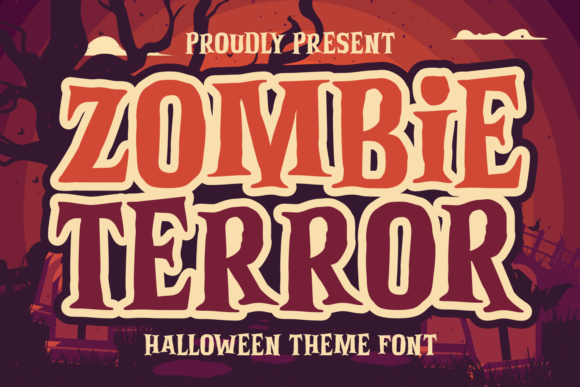
Introducing Zombie Terror Font, the ultimate spine-chilling typeface that will send shivers down your spine! Created by Jasm from 7NTypes, this font family is specifically designed to give your Halloween-themed projects a bone-chilling touch that will make your audience scream with delight.
With its jagged edges and ghoulishly bold letters, Zombie Terror Font perfectly captures the essence of the undead. Each character is crafted with meticulous attention to detail, ensuring that every word you type will ooze with the terrifying spirit of Halloween.
Are you hosting a haunted house event? Or perhaps you're organizing an eerie Halloween party? Look no further! Zombie Terror Font is your go-to choice for creating spine-tingling posters, invitations, and any other project that needs that extra dose of fright.
Imagine the impact when your guests receive an invitation adorned with this terrifying font. The twisted letters will instantly transport them to a world of ghouls and ghosts, setting the perfect tone for a night full of bone-chilling excitement.
But Zombie Terror Font is not just for party invitations. It's also perfect for crafting unique social media posts, creating captivating website banners, or adding a touch of horror to your personal blog.
Let your creativity run wild as you embrace the eerie atmosphere of Halloween with Zombie Terror Font. Its versatility allows you to experiment with different designs, whether you want to create a spooky atmosphere or a full-blown fright fest.
Not only does Zombie Terror Font offer spine-chilling aesthetics, but it also comes with the assurance of high-quality craftsmanship. Jasm from 7NTypes has poured their heart and soul into creating this font, ensuring that each character is carefully designed to maximize its scare factor.
So, why settle for ordinary fonts when you can captivate your audience with Zombie Terror Font? Let your text come alive with the terrifying essence of the undead.